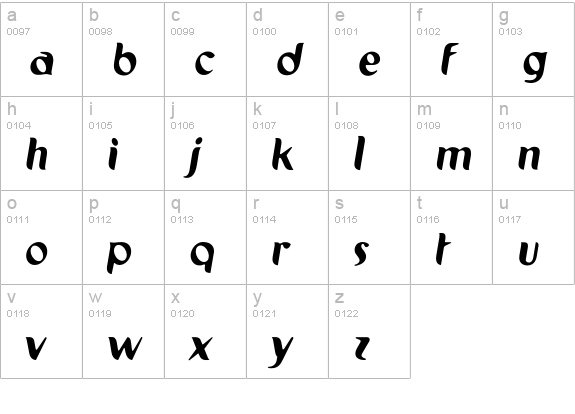
Pilot-2TI- Font Details
Pilot-2TI is a timeless font that effortlessly captures the essence of elegance and sophistication. Its clean and refined lines make it the perfect choice for any project that requires a touch of class. With its sharp edges and sleek curves, Pilot-2TI commands attention and exudes confidence. This font is not only visually striking but also highly versatile. Whether used in headlines, logos, or body text, Pilot-2TI ensures readability and legibility without sacrificing style. Its balanced proportions and well-defined characters create a harmonious visual experience, making it a favorite among designers and typographers. What sets Pilot-2TI apart is its availability as a free download at FontsMarket.com. This means that you can easily access this exceptional font without any cost. It's a rare opportunity to add such a high-quality font to your collection without breaking the bank. Pilot-2TI's freeness does not compromise its quality in any way. In fact, this font has been meticulously crafted to ensure the highest standards of design and functionality. Each character has been carefully designed to maintain consistency and clarity, resulting in a seamless and professional appearance. Whether you're a professional designer or someone looking to add a touch of sophistication to your personal projects, Pilot-2TI is the perfect choice. Its timeless elegance, versatility, and the fact that it is freely available to download at FontsMarket.com make it an invaluable addition to any font library. Don't miss out on the opportunity to elevate your designs with this exceptional font.